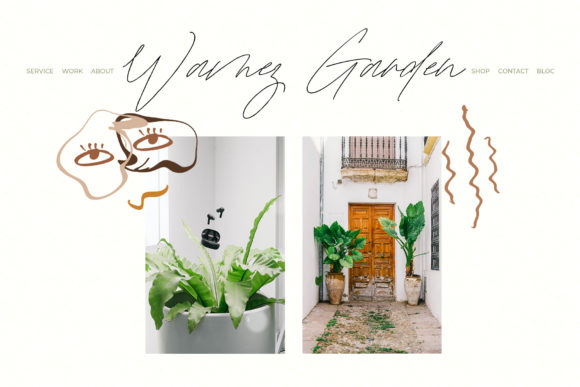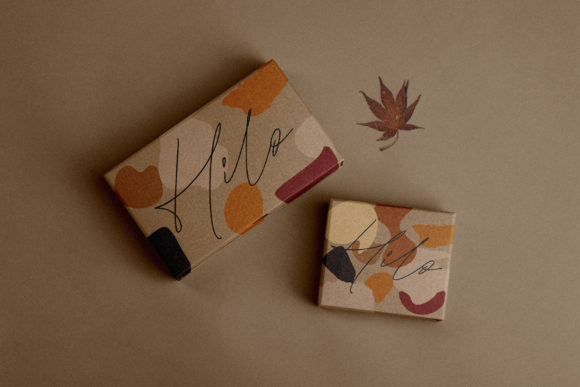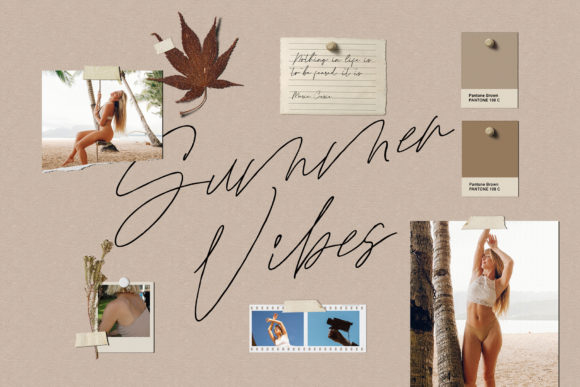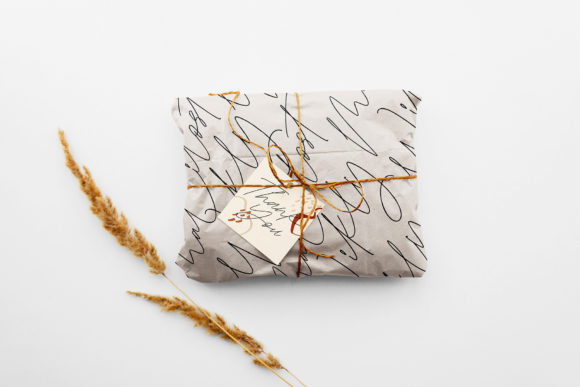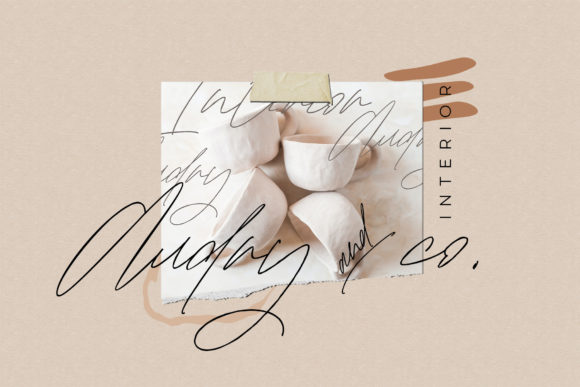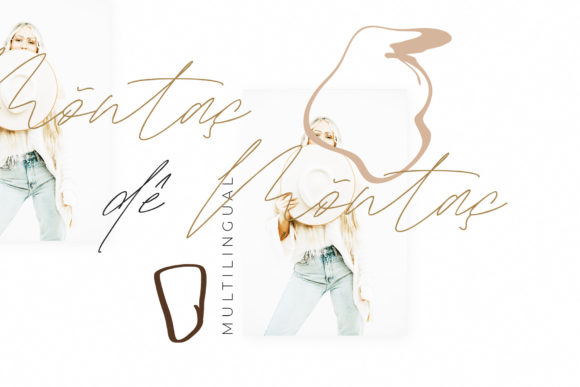
Matilost Wikly Font
About Matilost Wikly Font
Matilost Wikly is a thin lettered and delicate script font that exudes elegance and class. This font was particularly crafted for those who need a beautiful and refreshing look to their designs. Matilost Wikly is PUA encoded which means you can access all glyphs and swashes with ease!